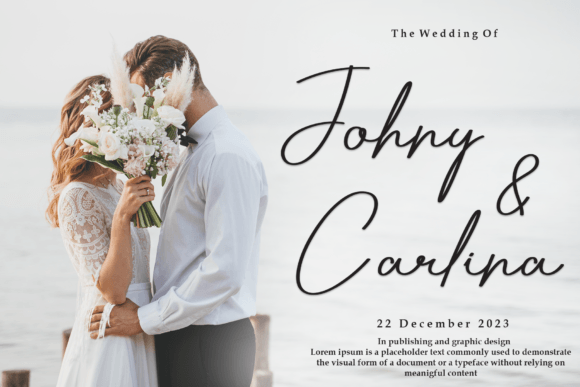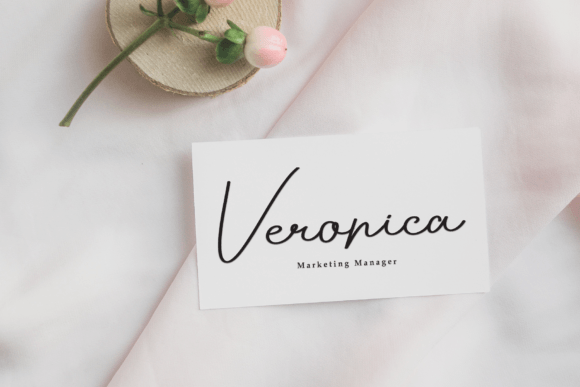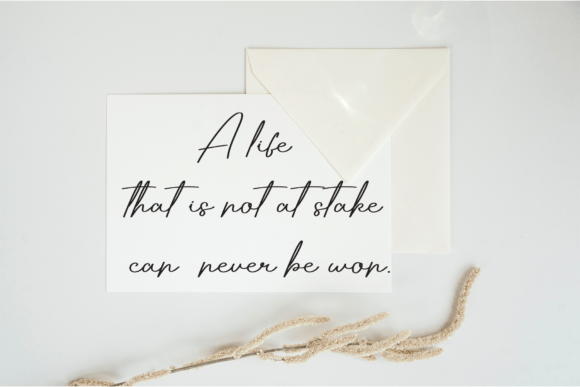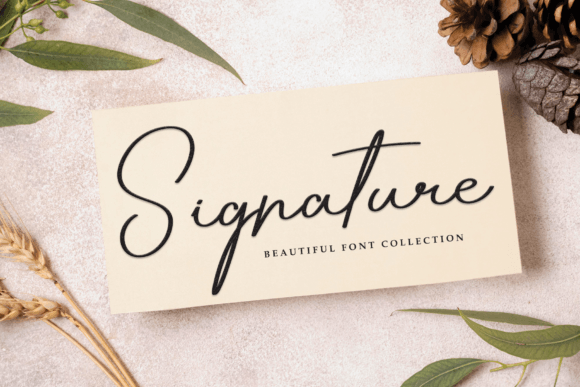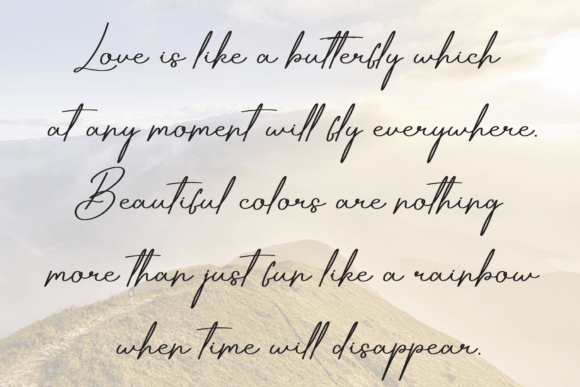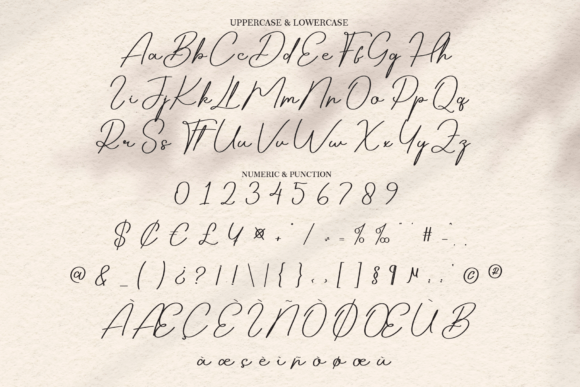
The Art of Significance: Introducing Audrey Signature Font
Have you ever struggled to convey the perfect balance of elegance and personality in your designs? We’ve all been there – pouring over font options, tweaking every detail, and still, somehow, missing that special something. It’s a moment we’ve all experienced: the ‘aha’ moment when everything falls into place, and our design takes on a life of its own.
That’s where the Audrey Signature Font comes in – a masterclass in refined sophistication and personal charm. This exquisite, italic handwriting font captures the essence of a handwritten signature, bringing a touch of warmth and authenticity to any design project. Whether you’re crafting a logo, branding materials, or a heartfelt invitation, the Audrey Signature Font is the perfect companion to elevate your text and leave a lasting impression.
Audrey Signature Font Key Features
- Font Style: Elegant, cursive script font with a touch of sophistication.
- Unique Characteristics: Features swashes, flourishes, and connecting strokes to create a beautiful, handwritten effect.
Designer Review: Audrey Signature Font
As a designer, I’ve had the opportunity to work with a variety of fonts, and the Audrey Signature Font is one that stands out. ✨ The first thing I noticed was the elegant, cursive script that gives it a touch of sophistication and luxury. It’s perfect for designers looking to create high-end, premium designs.
The font is highly customizable, with a wide range of styles and weights to choose from. ✨ This makes it versatile and suitable for a variety of projects, from invitations to logos.
However, there are some limitations to consider: ⚠️ The font may not be the best choice for body text, as it can be difficult to read in large quantities. Additionally, the font may not be compatible with all devices or browsers, which could lead to formatting issues.
Here are some key features of the font:
- Elegant, cursive script
- Suitable for high-end designs
- May not be ideal for body text
- May have compatibility issues with some devices or browsers
Overall, I would give the Audrey Signature Font 4 out of 5 stars. It’s a beautiful font that’s perfect for certain types of projects, but it’s not without its limitations. With careful planning and execution, it can be a valuable addition to any designer’s toolkit.
For best results, use the Audrey Signature Font in combination with elegant and cursive-style graphics. Experiment with different font sizes, colors, and arrangements to achieve a unique and stylish look. Consider pairing the font with other elegant fonts to create a cohesive design.
The Audrey Signature Font is ideal for creating invitations, wedding stationery, and other special occasion designs. It’s also perfect for adding a touch of elegance to your blog or social media graphics. Use it to create beautiful and eye-catching headlines, quotes, or captions that add a personal touch to your designs.